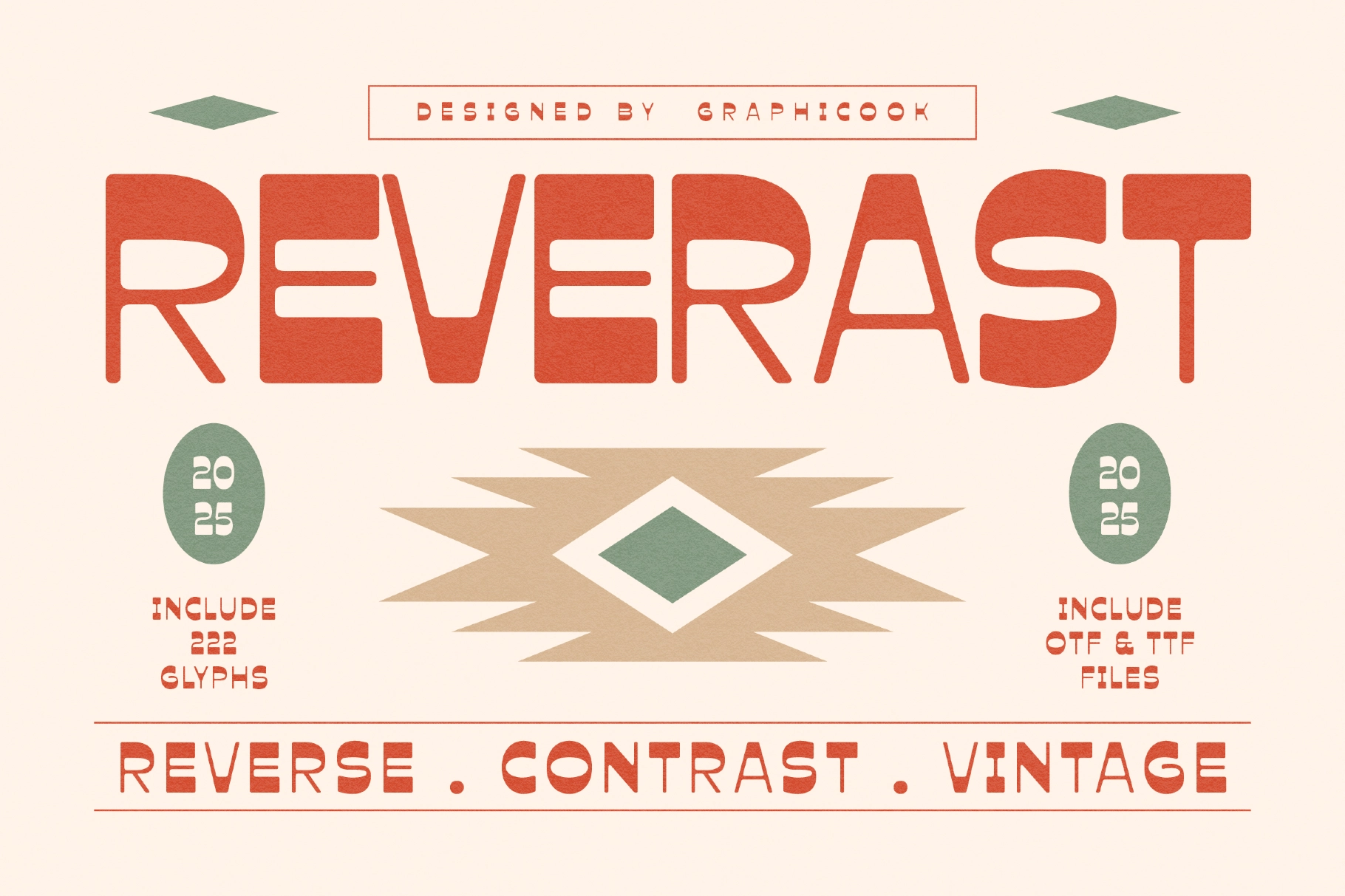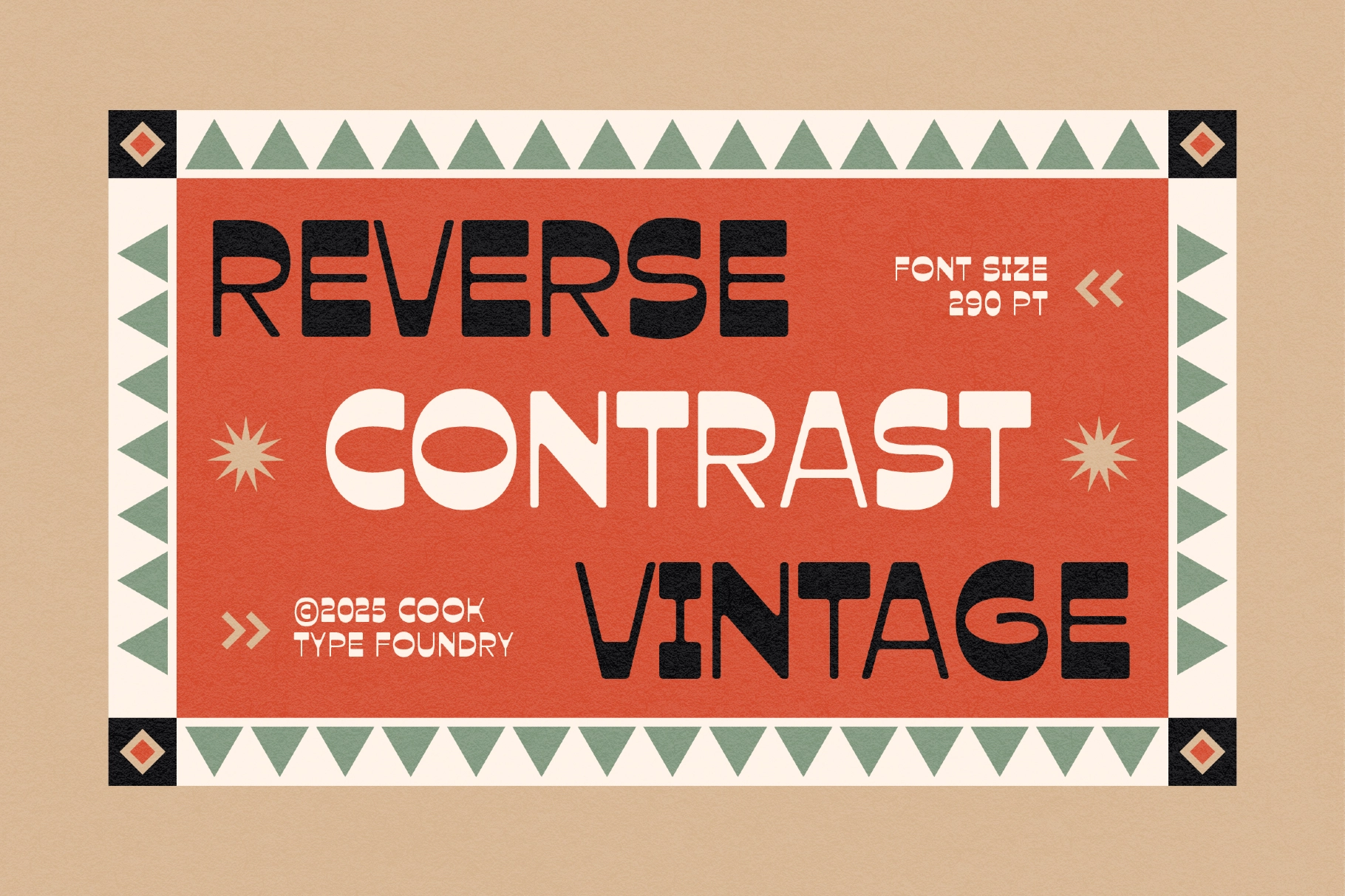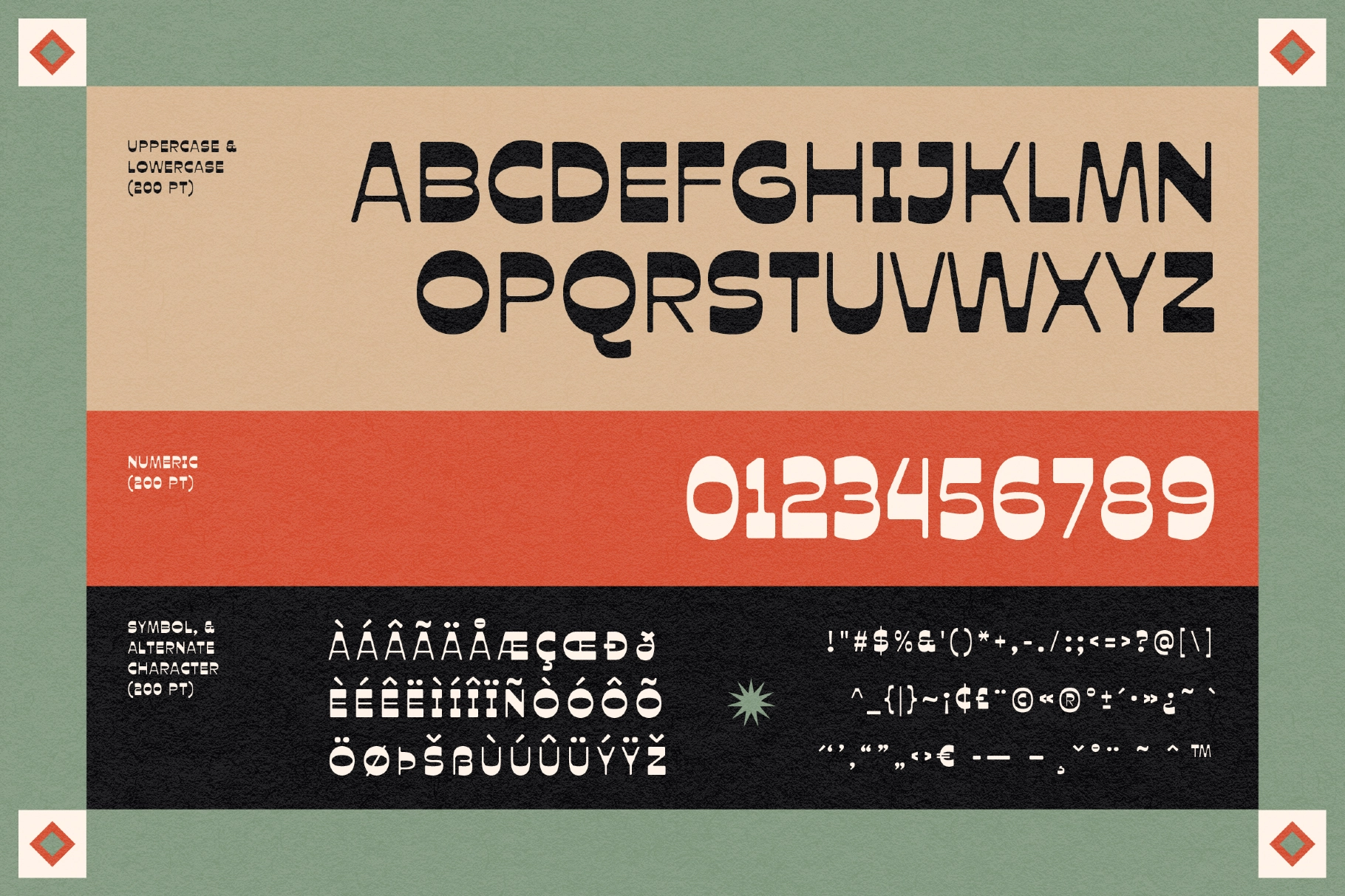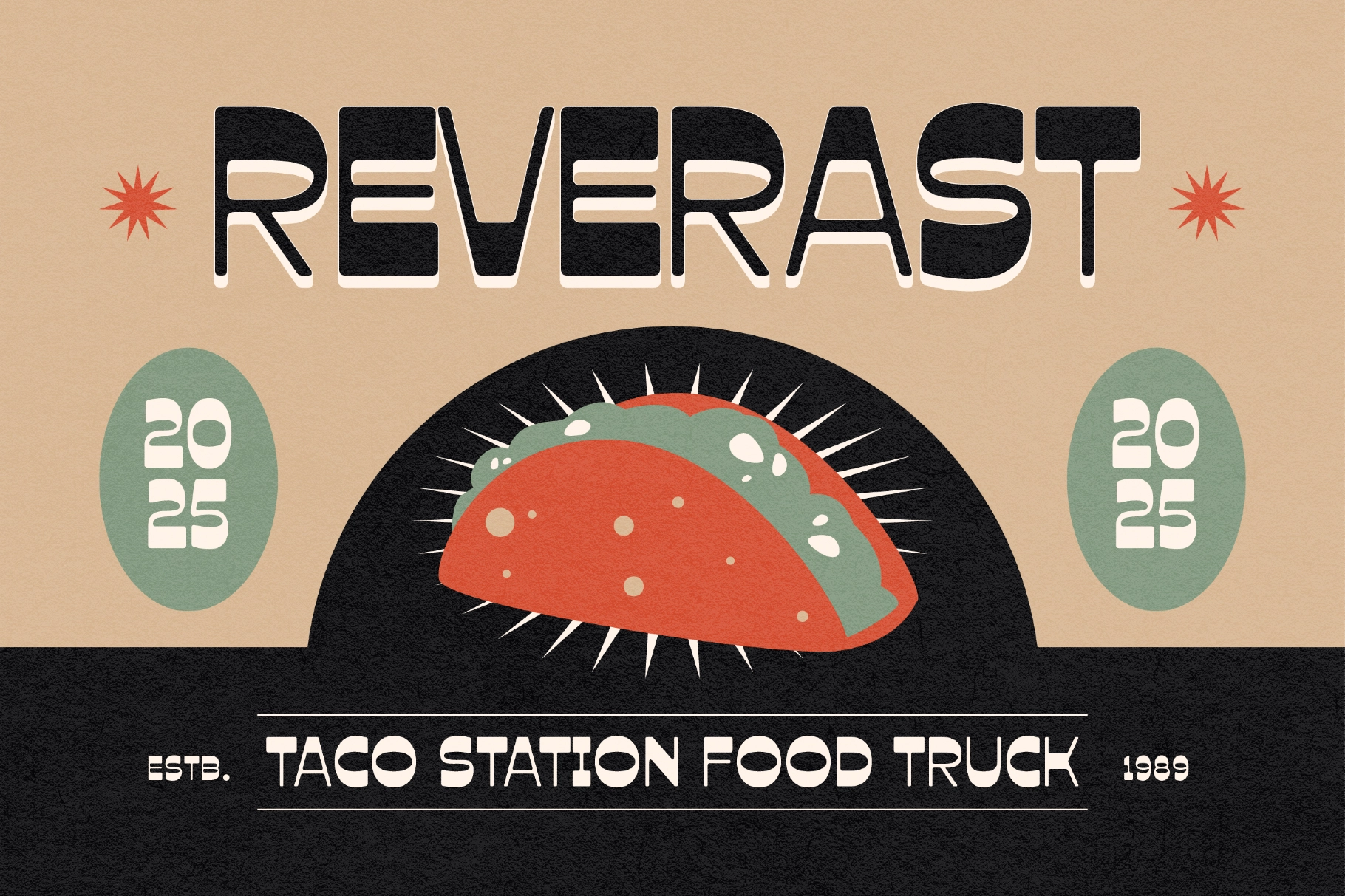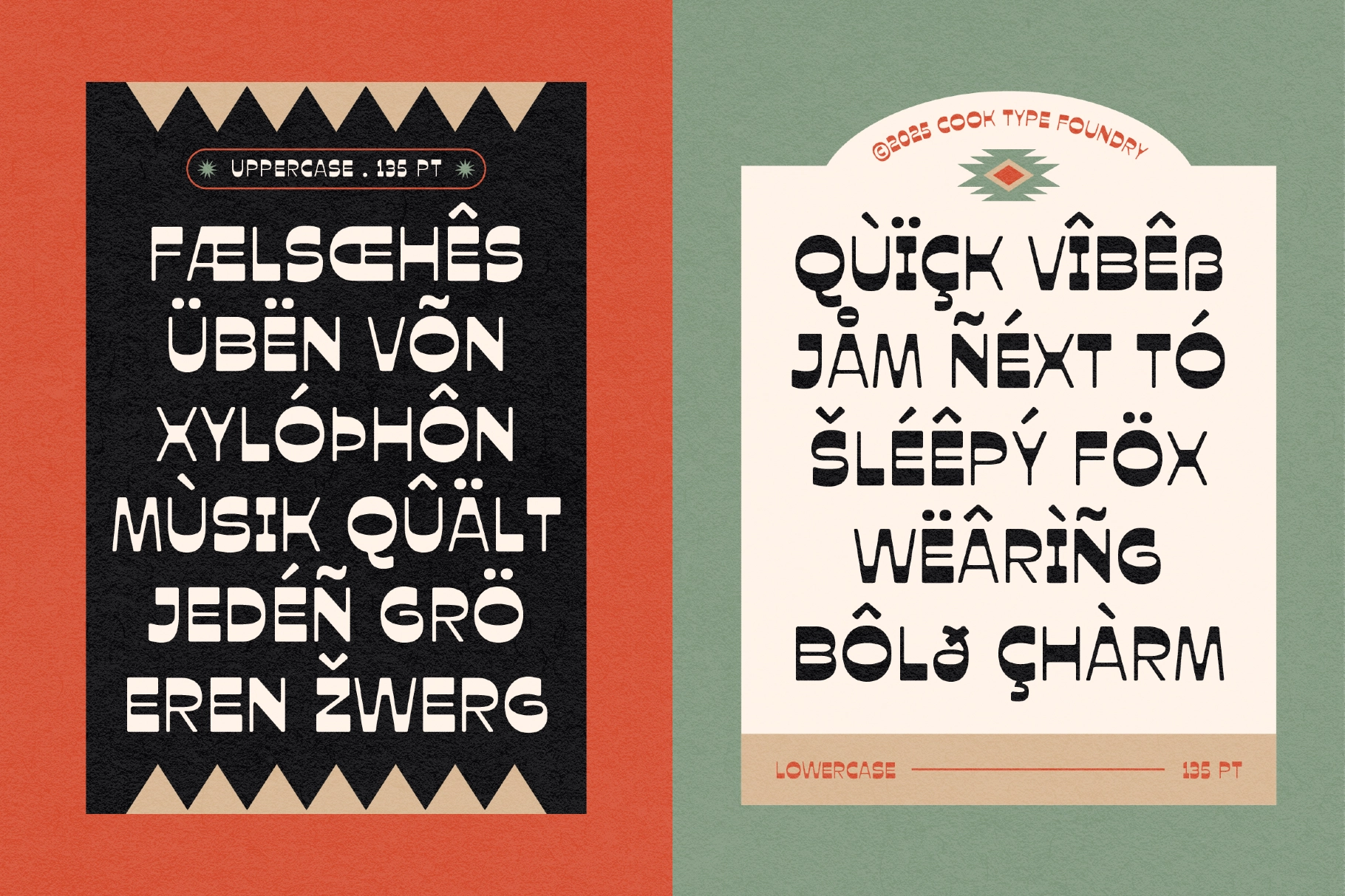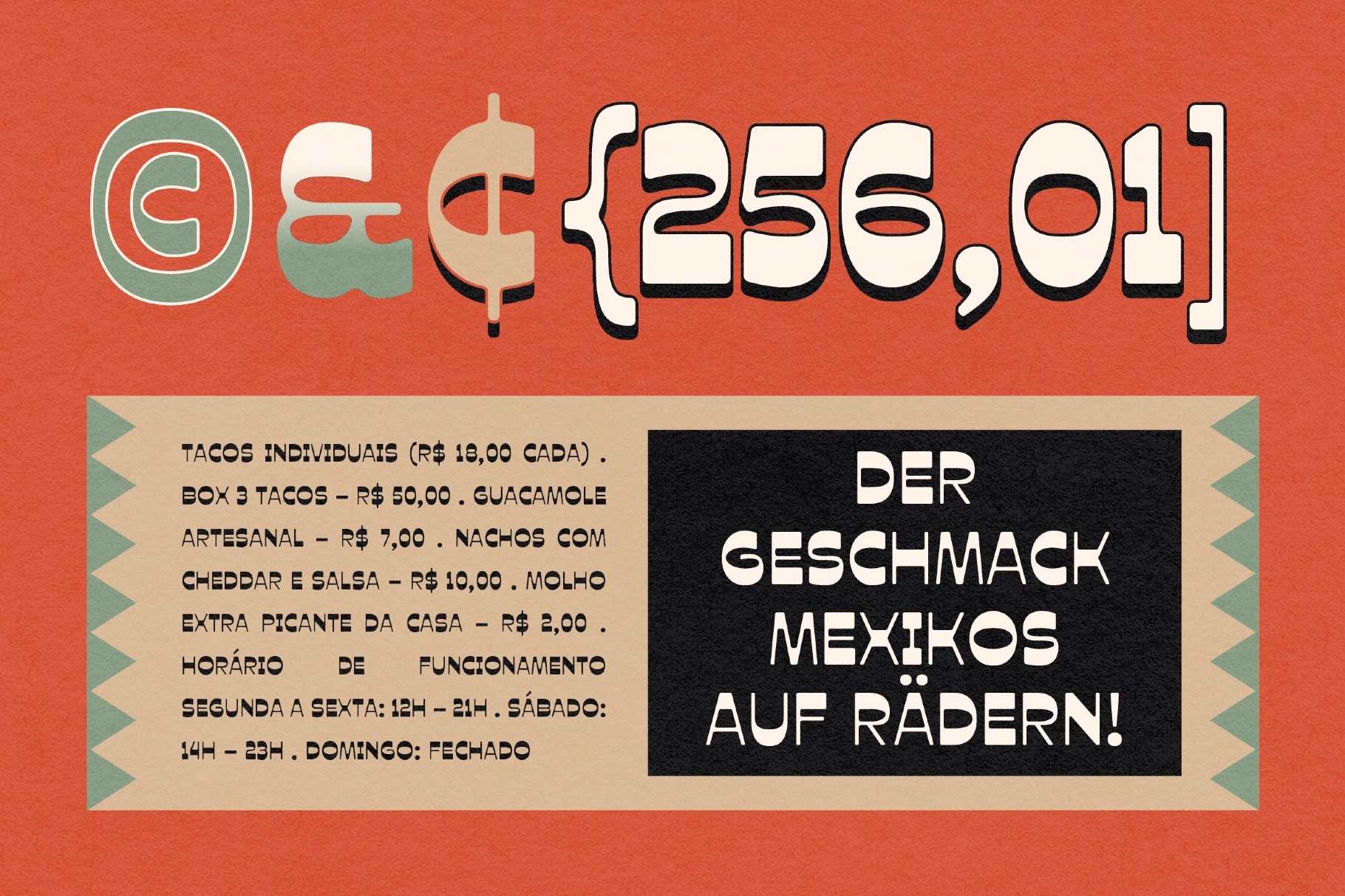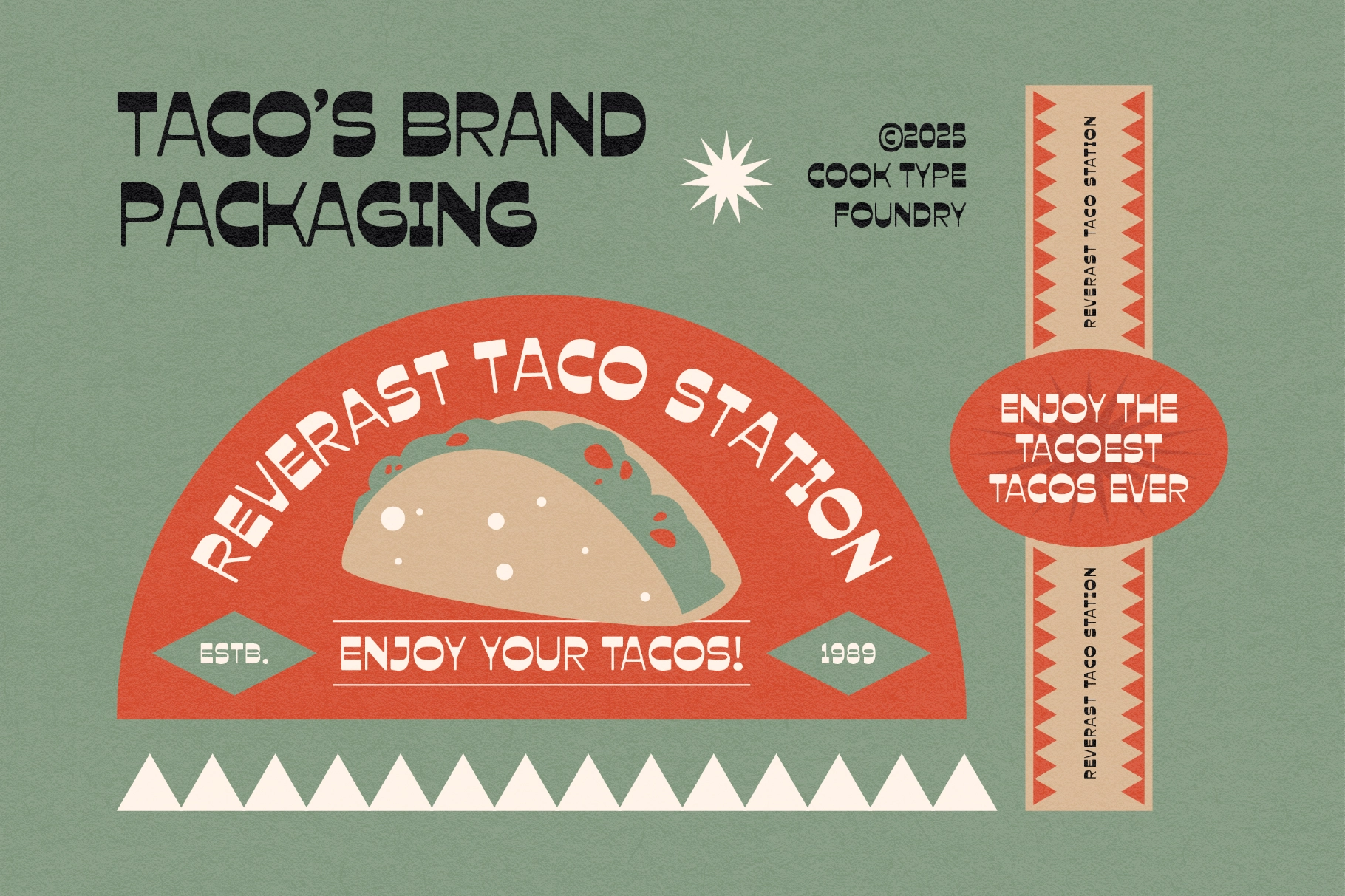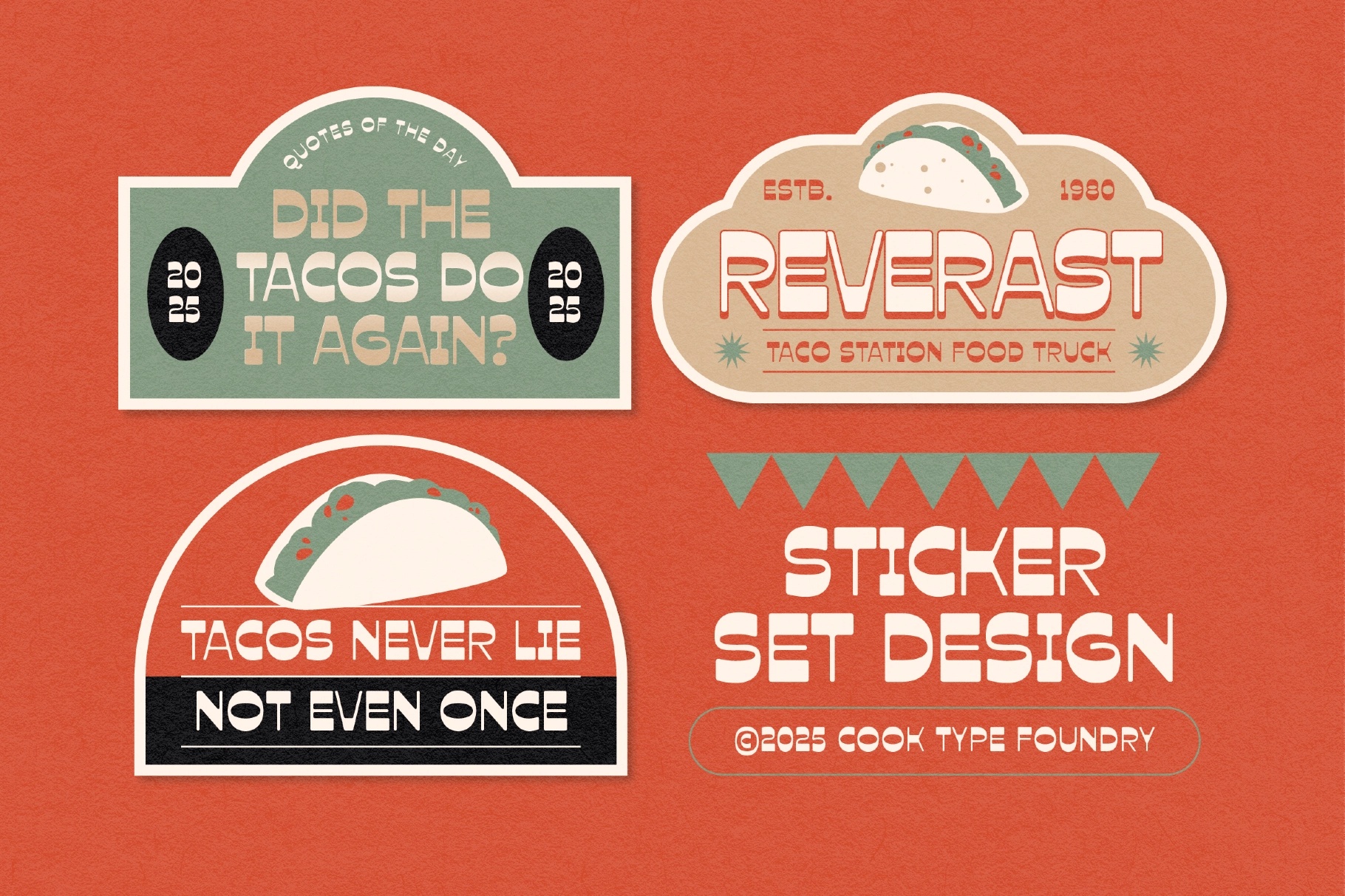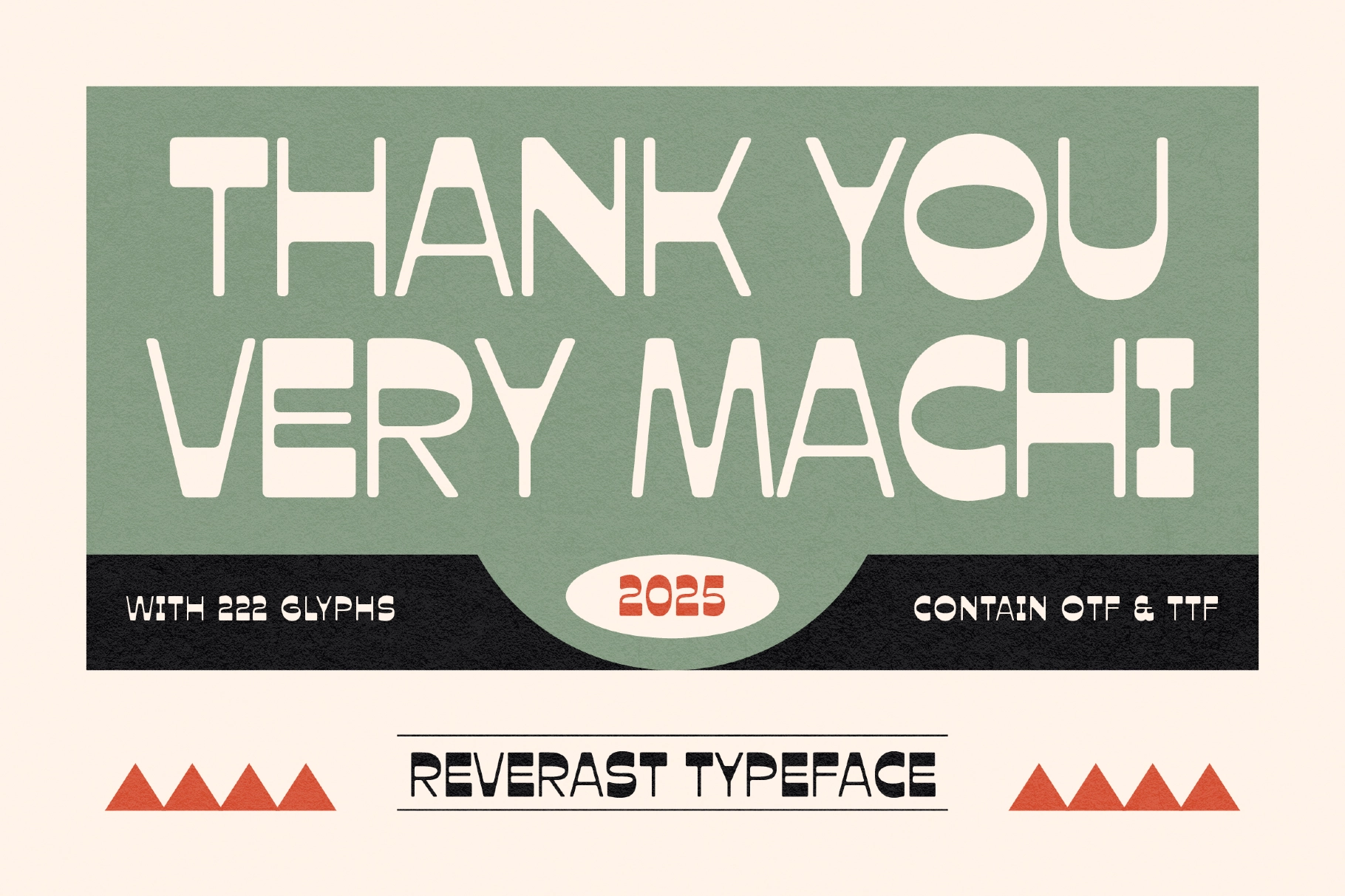
Reverast Font
Reverast
Reverast is a reverse-contrast display font with bold, distinctive shapes. Its thick horizontals and thin verticals create a playful retro charm, ideal for posters, logos, packaging, and standout visual projects.